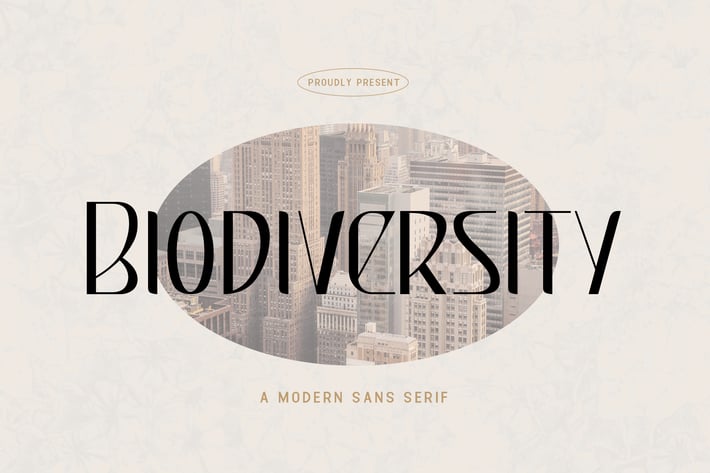
Biodiversity - A Modern Sans Serif Font
Biodiversity is a sleek and contemporary sans serif font designed to bring a modern and clean touch to your design projects. With its minimalistic lines and geometric shapes, Biodiversity is perfect for modern branding, stylish websites, dynamic posters, and professional presentations. This font embodies a fresh and uncluttered aesthetic, ensuring your work stands out with clarity and sophistication.
Crafted with precision, Biodiversity features crisp and well-balanced characters that offer excellent readability and visual appeal. Its modern design makes it ideal for both display and body text, providing a versatile and polished look across all your visual communications. The font’s adaptability allows it to integrate seamlessly into various design contexts, from digital interfaces to printed materials, making it a valuable asset for any designer aiming to create clean and impactful visuals.
Elevate your design projects with Biodiversity, a font that captures the essence of modern elegance and simplicity. Its unique style and versatility make it an essential addition to any designer’s toolkit for crafting refined and effective designs. Enhance your work with Biodiversity and experience the beauty of contemporary sans serif typography.